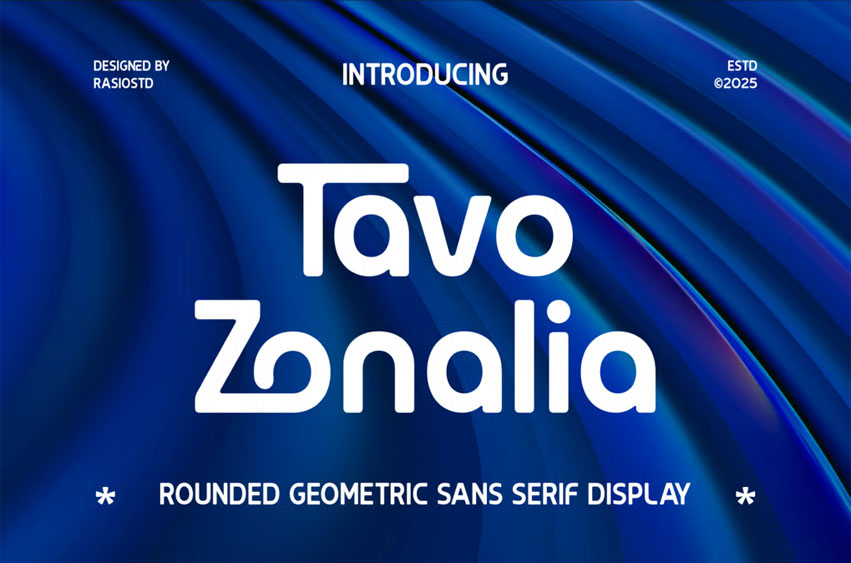
Tavo Zonalia Font is a rounded geometric sans-serif display font designed for modern tech branding. With its bold ligatures, clean letterforms, and futuristic alternates, this typeface bridges technology and design, making it ideal for high-frequency communication, interface UI/UX, science fiction titles, or any digital product that requires a stylish tech aesthetic. The smooth curves and calculated precision offer a clear, assertive, and innovative presence, whether used in headlines, posters, gaming interfaces, or AI-related visuals.
Relevance and Use Cases is perfect for tech branding, AI interface, sci-fi design, gaming UI, cyberpunk posters, digital product branding, technology brochure, IT company logo, innovative typography, UI/UX design, startup branding, coding and development platform, server and motherboard visuals, digital editorial, futuristic ad campaign, app UI title, interface buttons, electronic-themed product, software splash screen, science & data visualization.